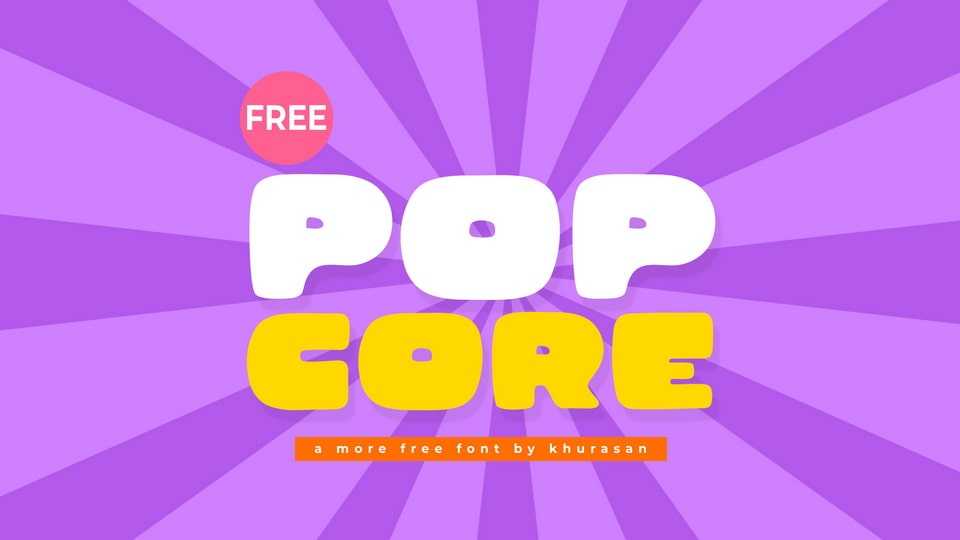
Downoad Pop Core font, a heavy cartoon typeface bursting with personality. Its rounded corners and playful proportions create a funky, energetic look.